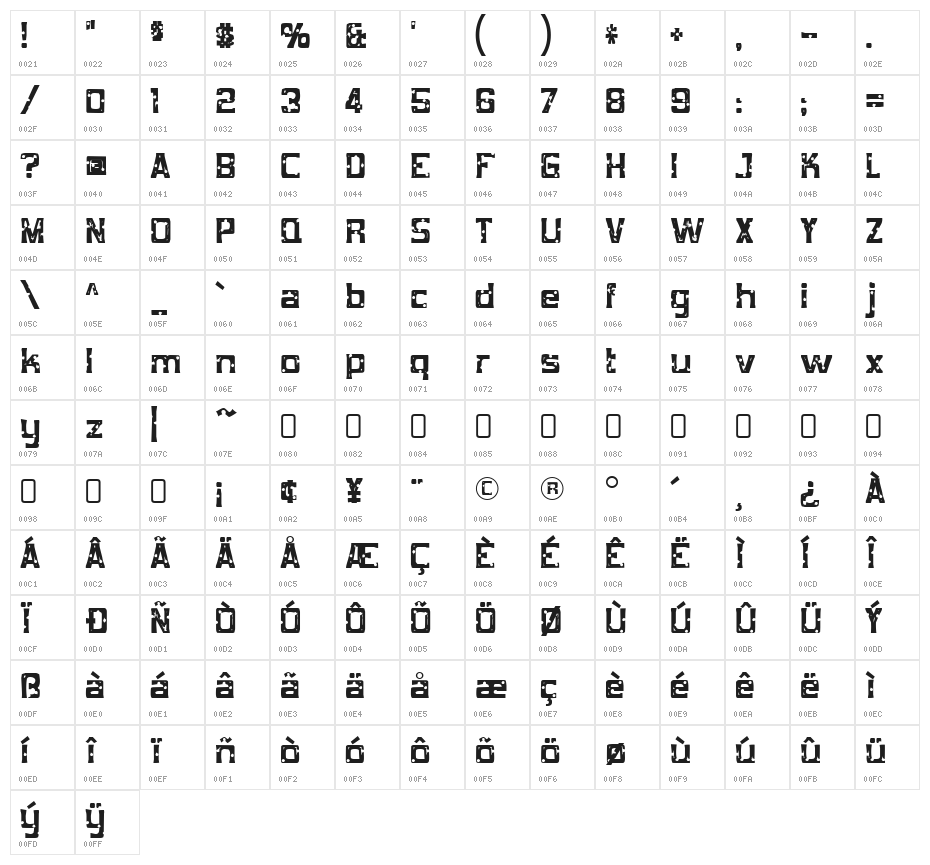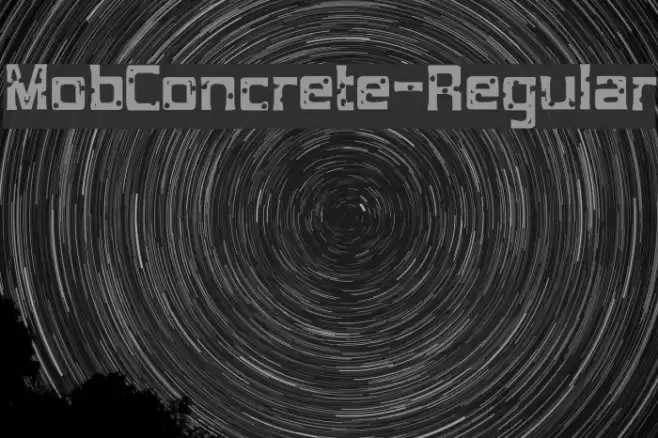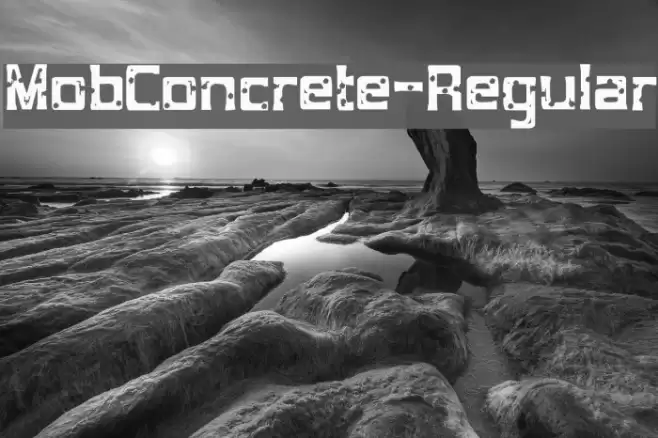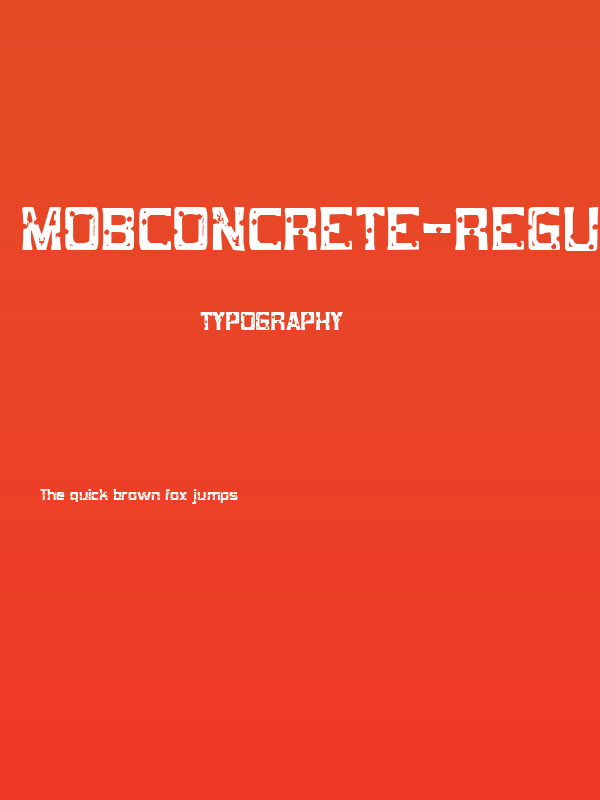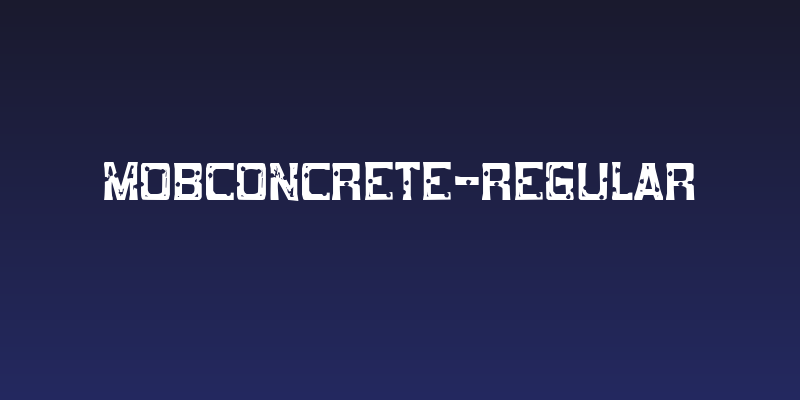
MobConcrete-Regular Font
MobConcrete-Regular Description
This font features a bold, industrial design with a distressed texture that mimics the appearance of concrete. The characters are blocky and robust, with irregular, chipped edges that give a rugged, urban feel. The uppercase and lowercase letters maintain a consistent style, while the numerals and special characters integrate seamlessly with the overall aesthetic. The font's unique texture adds depth and character, making it stand out in any design project. Its bold presence and distinctive style make it ideal for projects that require a strong visual impact.
| Overall Style | Industrial, Urban, Rugged |
| Proposed Projects | Ideal for posters, album covers, urban-themed branding, and any project requiring a strong, gritty aesthetic. |